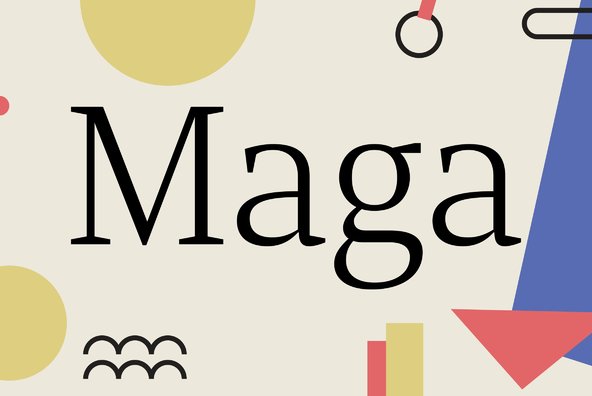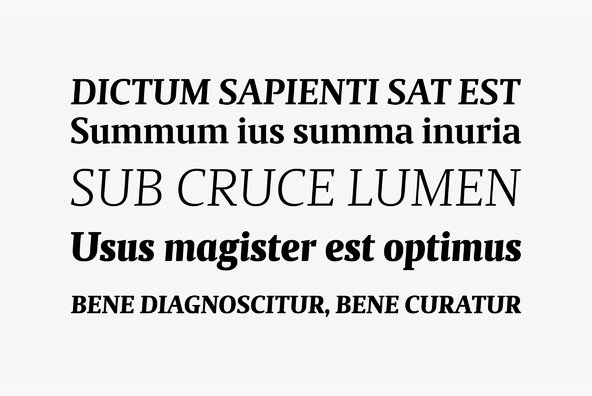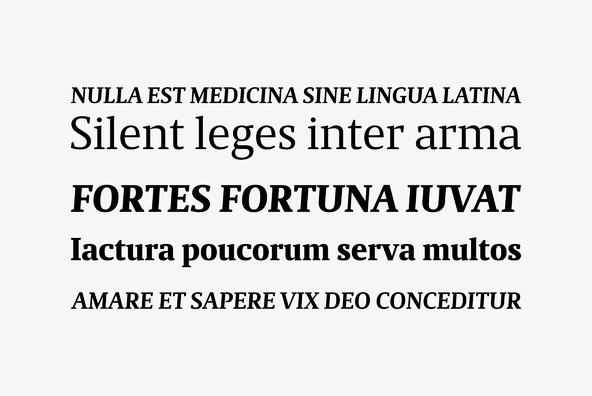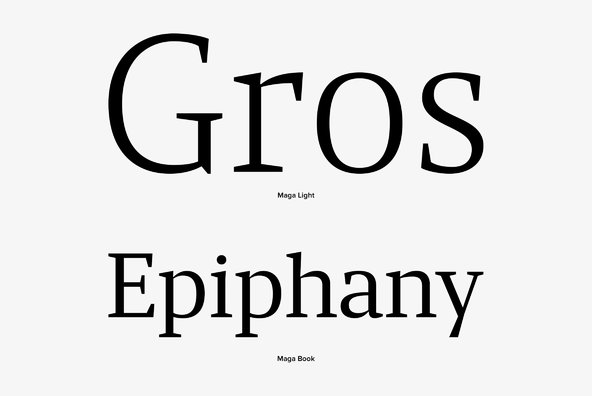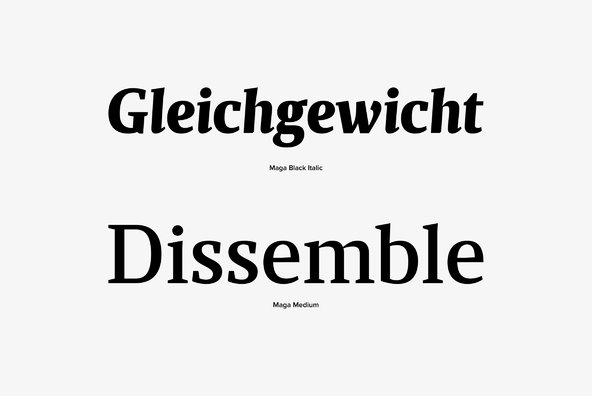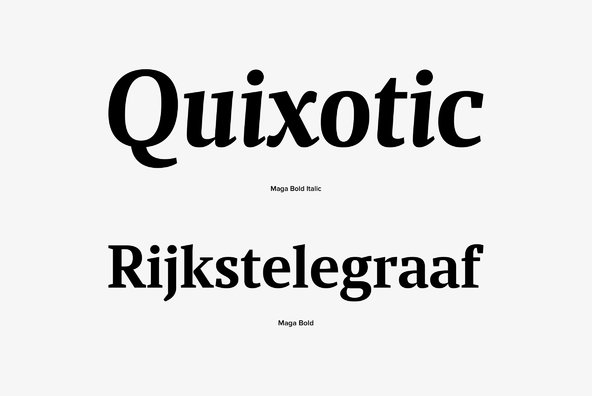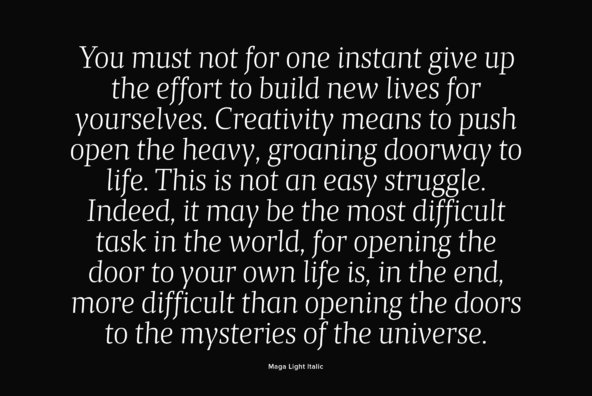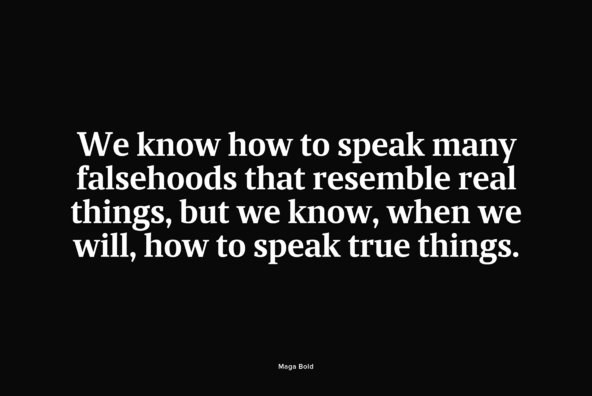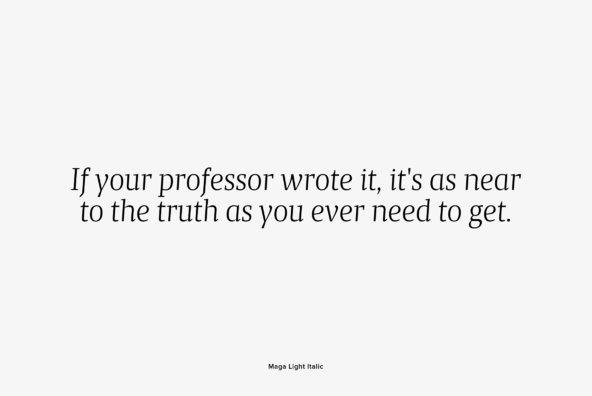
Maga shares the skeleton with one of our first typefaces (Quaestor, from 2004), but we didn't want to simply expand an existent design, so we took a step forward—not just with improved features and new weights, but also making the italics more usable than its predecessor. The balance between the counters and the space between letters makes this a very space-saving typeface with plenty of legibility, yet enough stylish for contemporary magazine design.